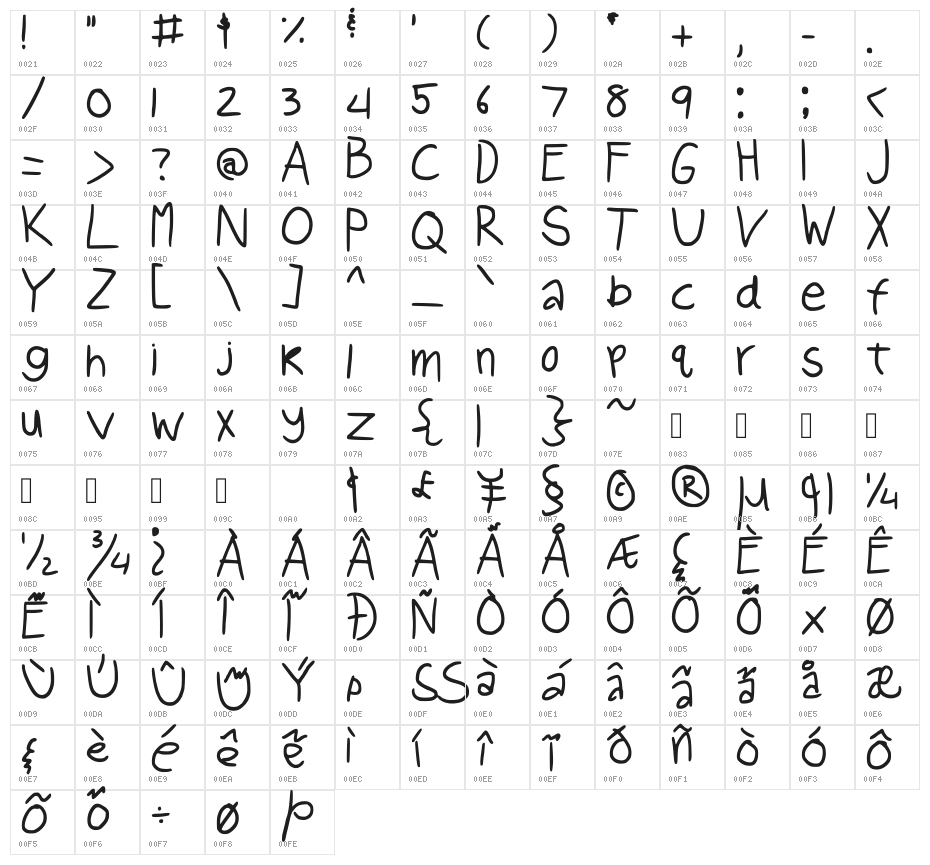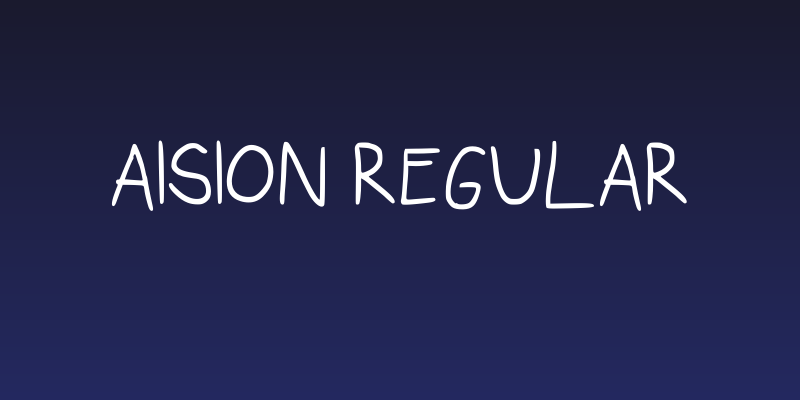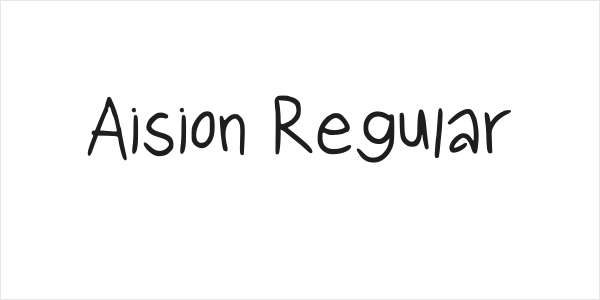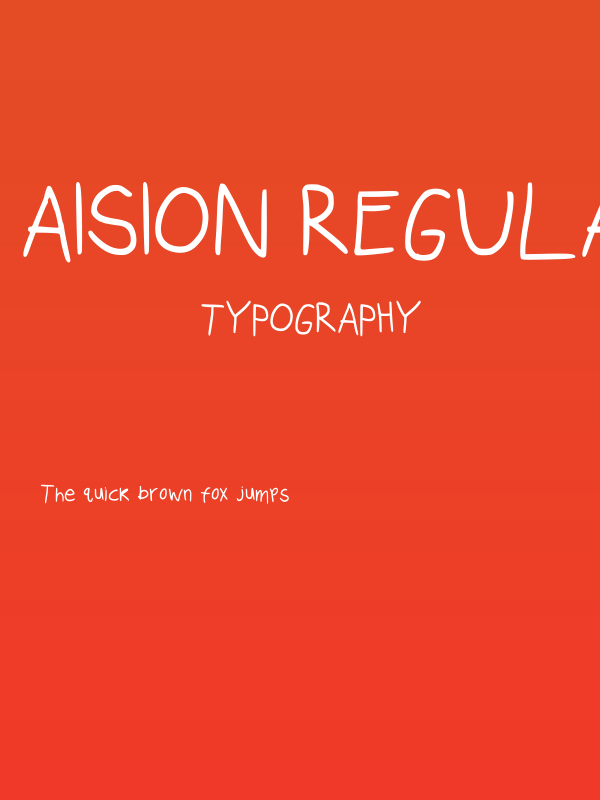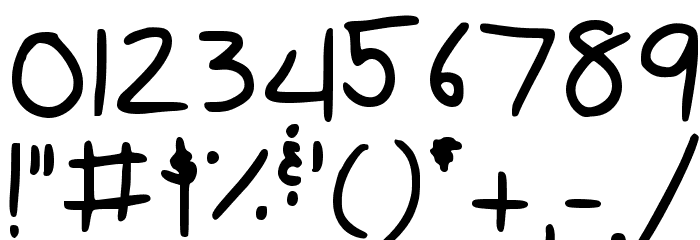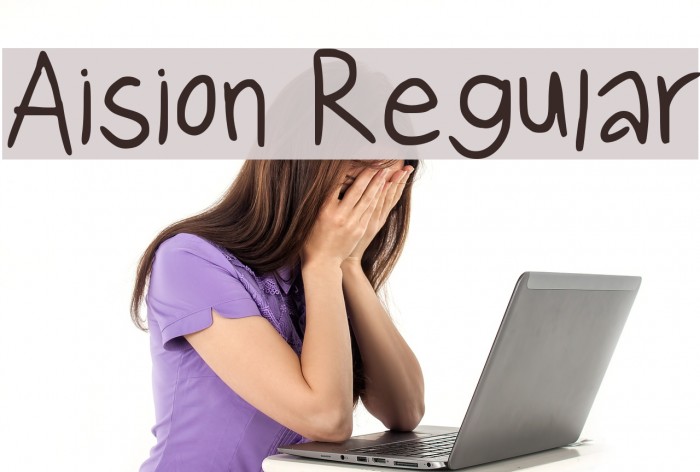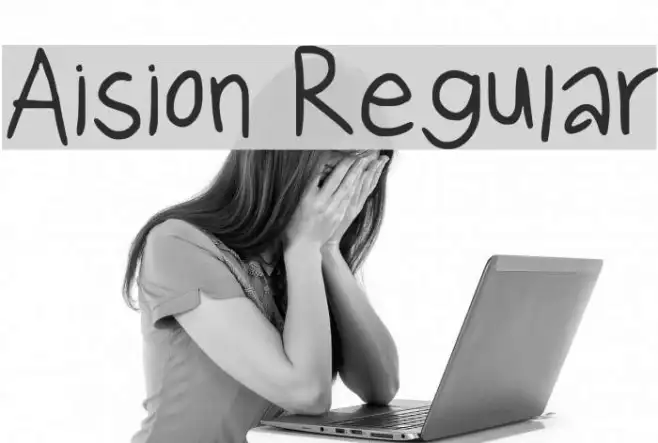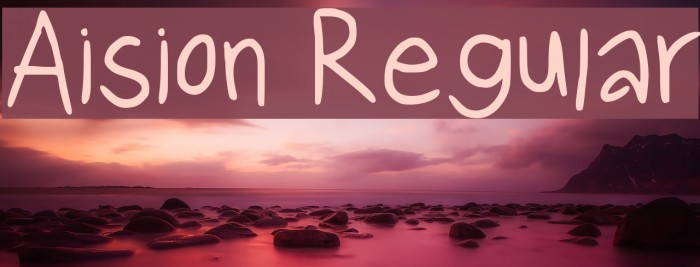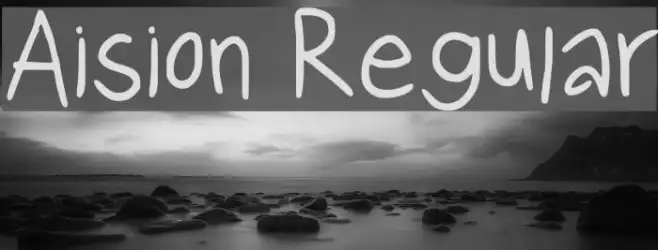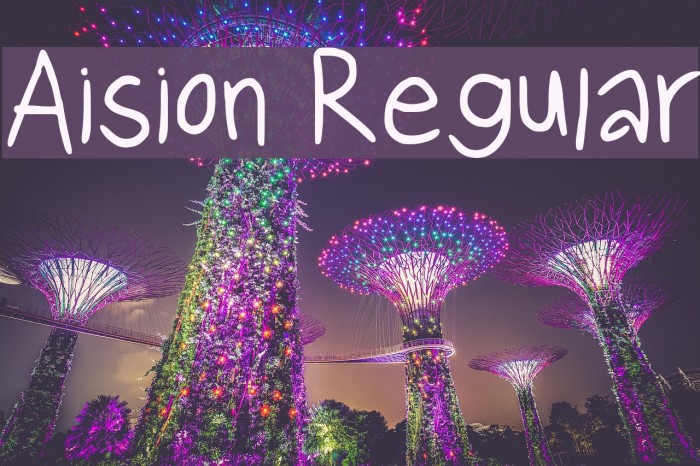
Aision Regular Font
Aision Regular Description
This font features a playful and casual handwritten style, characterized by its smooth, rounded edges and slightly irregular letterforms. The uppercase and lowercase letters maintain a consistent flow, giving it an approachable and friendly appearance. The numerals and special characters are designed to match the overall aesthetic, ensuring harmony across all glyphs. Its informal nature makes it suitable for projects that require a personal touch, such as invitations, greeting cards, or children's book illustrations. The font's simplicity and readability also make it versatile for various design applications.
| Overall Style | Casual |
| Use Case | Headlines, Informal text, Invitations |
| Proposed Projects | Ideal for invitations, greeting cards, children's books, and informal branding. |